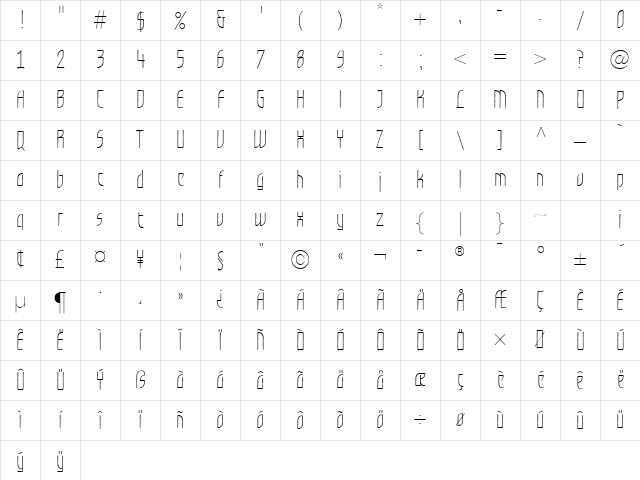
GrafiloneLL Light Regular
Design Context for GrafiloneLL Light
GrafiloneLL Light is a composed and adaptable typeface that performs quietly and consistently across a wide range of design contexts. Its slender proportions lend an understated elegance to any composition.